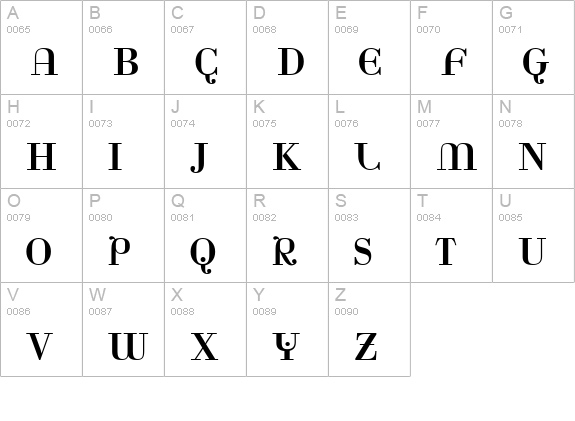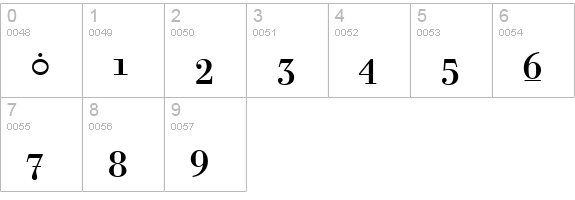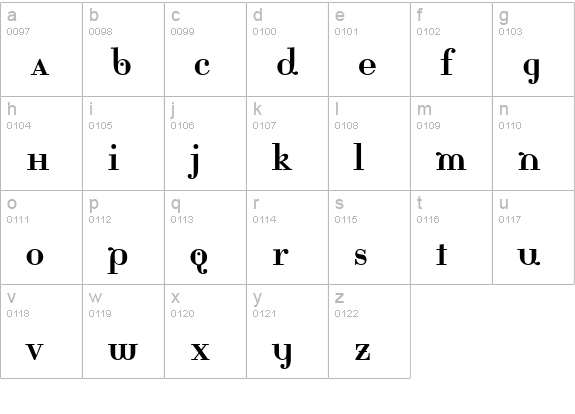
Rina Font Details
Rina font is a beautiful and elegant typeface that exudes sophistication and charm. Its delicate curves and graceful letterforms make it perfect for adding a touch of elegance to any design project. Whether you're creating wedding invitations, branding materials, or simply adding a touch of class to your website, Rina font is sure to impress. What sets Rina font apart is not just its stunning design, but also the fact that it is available for free. That's right, you can download this amazing font for absolutely no cost at FontsMarket.com. This makes it accessible to designers, entrepreneurs, and creative individuals of all kinds, who are looking to elevate their projects without breaking the bank. With Rina font, you get the best of both worlds - a high-quality, professionally designed typeface that doesn't come with a hefty price tag. It's a win-win situation that allows you to create stunning visuals without compromising on your budget. Plus, the free availability of Rina font means that you can experiment and play around with it to your heart's content, without any limitations. Whether you're a seasoned designer or just starting out, Rina font is a valuable addition to your font library. Its versatility and timeless appeal make it suitable for a wide range of design applications. So why wait? Head over to FontsMarket.com and download Rina font today, and see how it can transform your projects from ordinary to extraordinary.